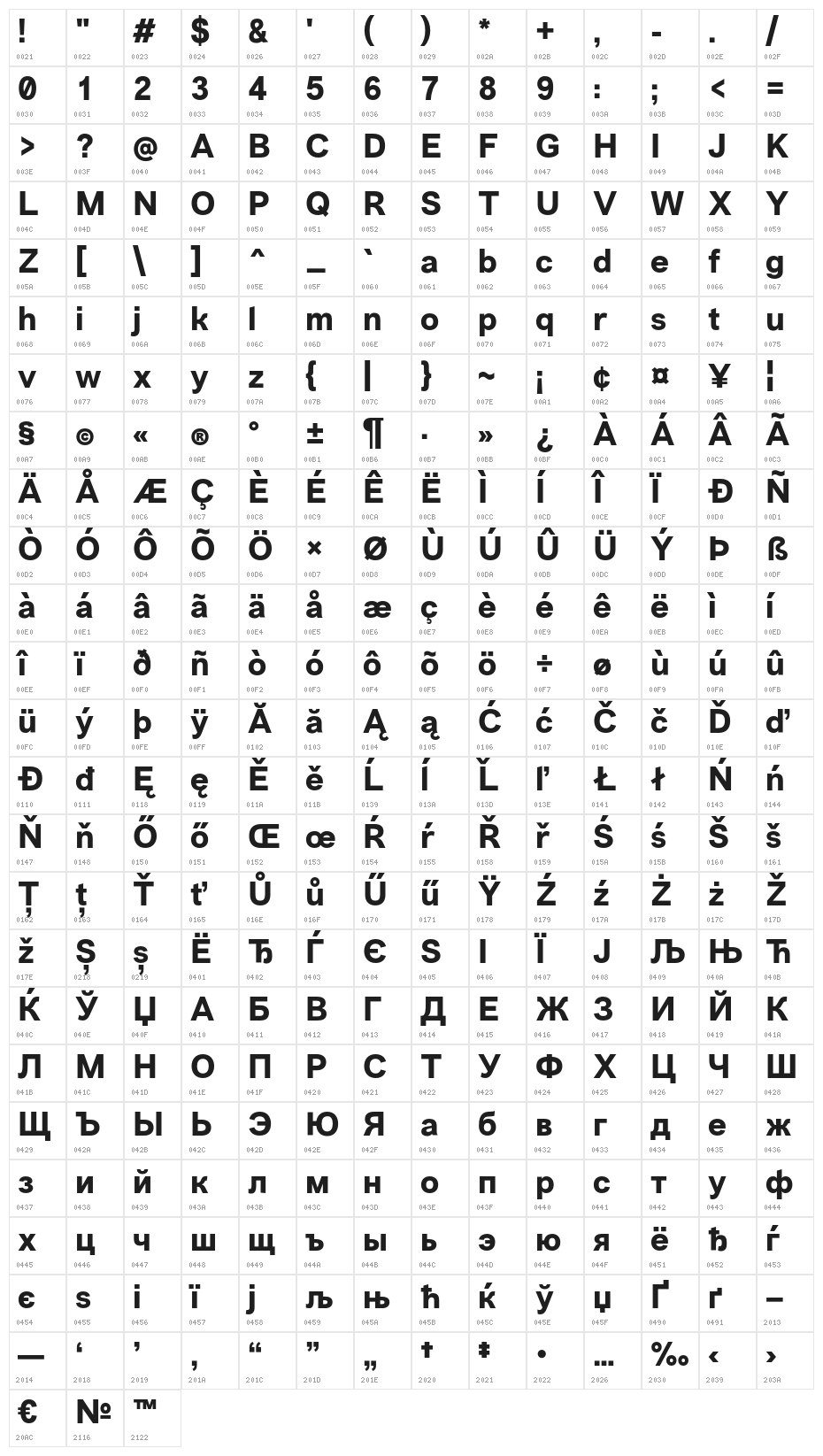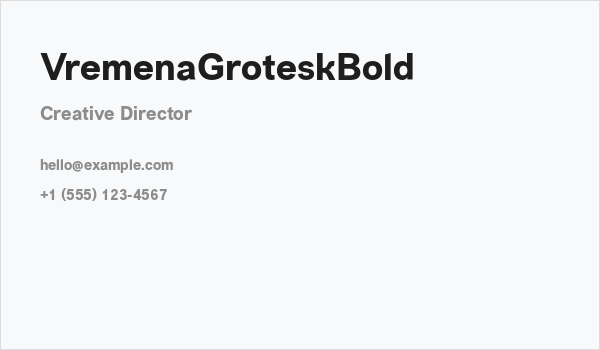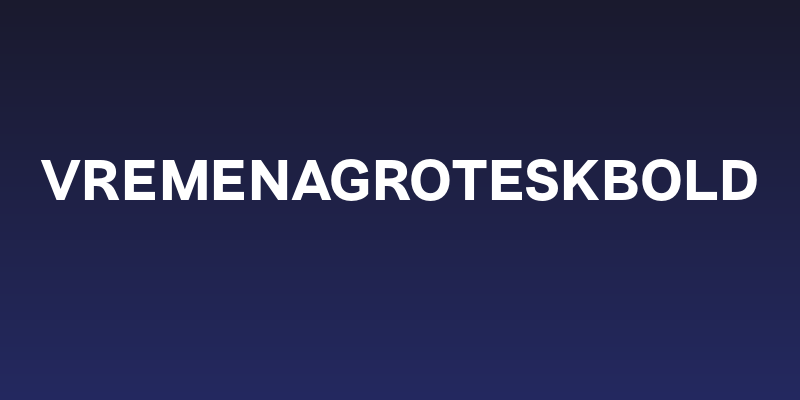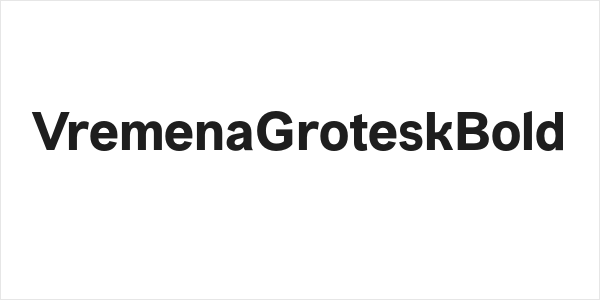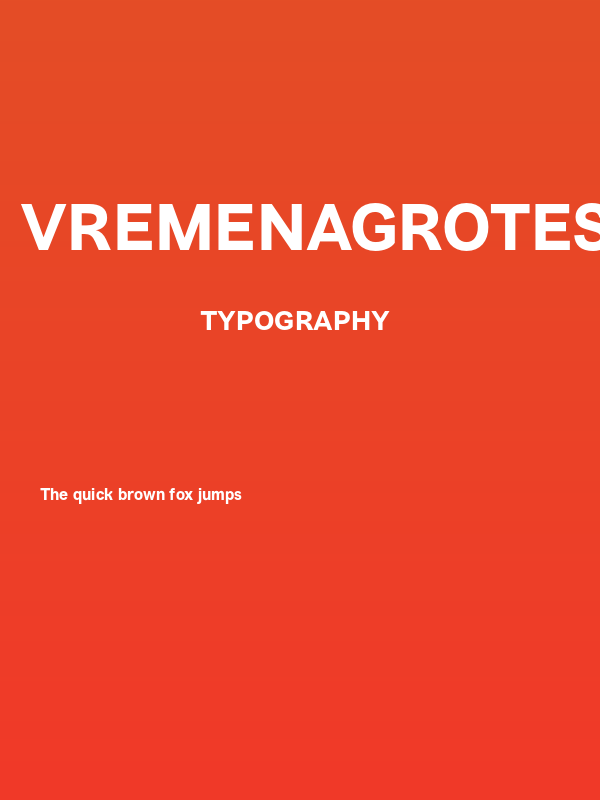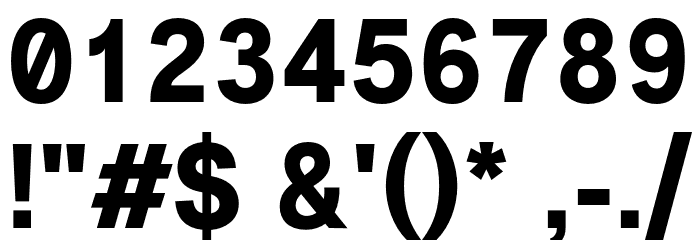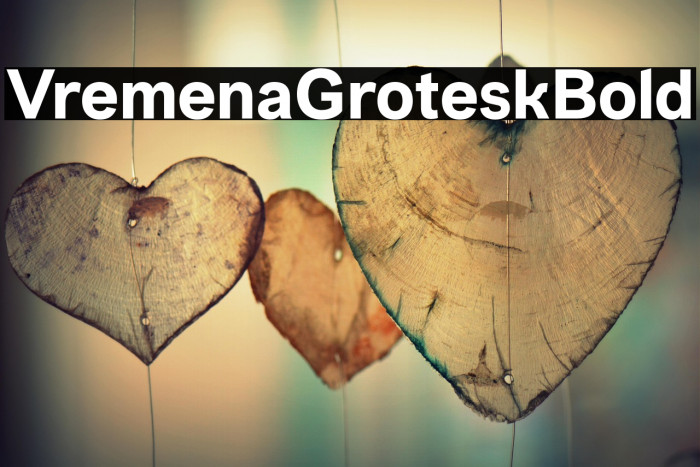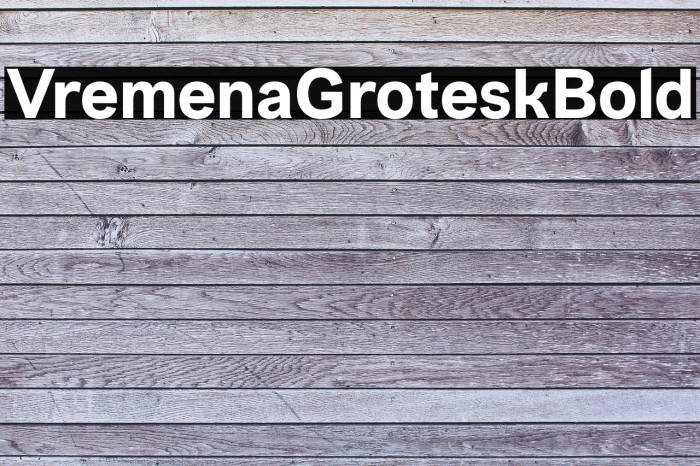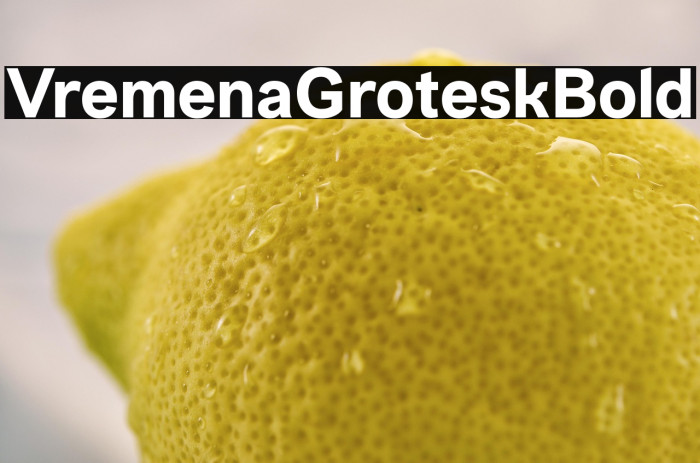
VremenaGroteskBold Font
VremenaGroteskBold Description
This typeface features a bold, sans-serif style with a strong presence. The characters are uniform and geometric, providing a clean and modern look. The uppercase and lowercase letters maintain a consistent weight, contributing to a balanced appearance. The numerals are clear and easily distinguishable, while the special characters are well-integrated into the overall design. This font is highly legible, making it suitable for various applications where clarity is essential.
| Use Case | Headlines, Logos, Digital interfaces |
| Proposed Projects | Ideal for branding, advertising, headlines, and digital interfaces where a strong, modern impression is desired. |